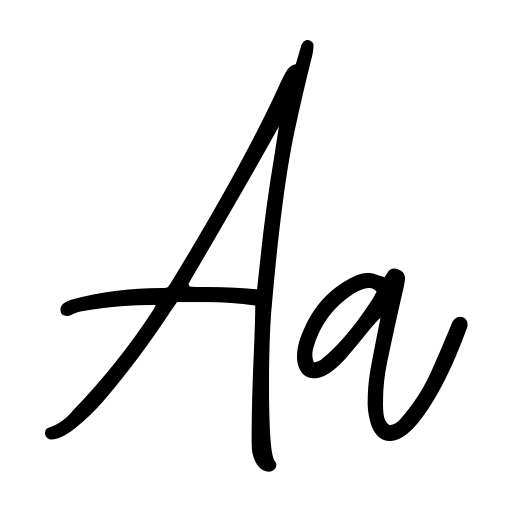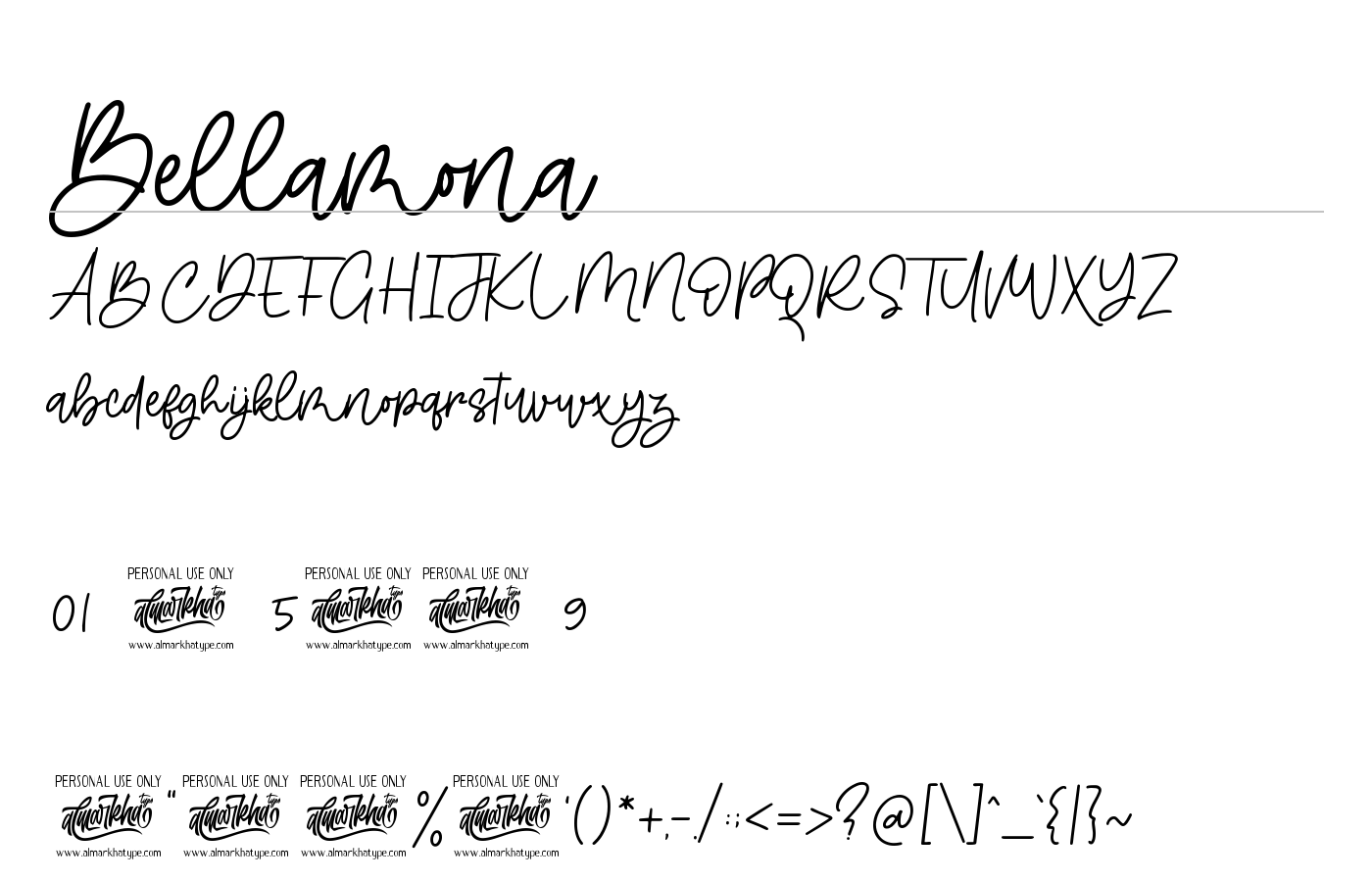
Bellamona is a lively, elegant script font characterized by its delicate, hand-drawn strokes and playful, flowing letterforms. Its light weight and slightly irregular lines give it a personal, handwritten feel that suits creative branding, invitations, and feminine designs beautifully. This font works well when you want to add a charming, approachable touch with a modern yet casual sophistication.
Bellamona Font
About Bellamona Font
| Designer | Almarkhatype Studio 2020 - Abdul Malik - Adriansyah |